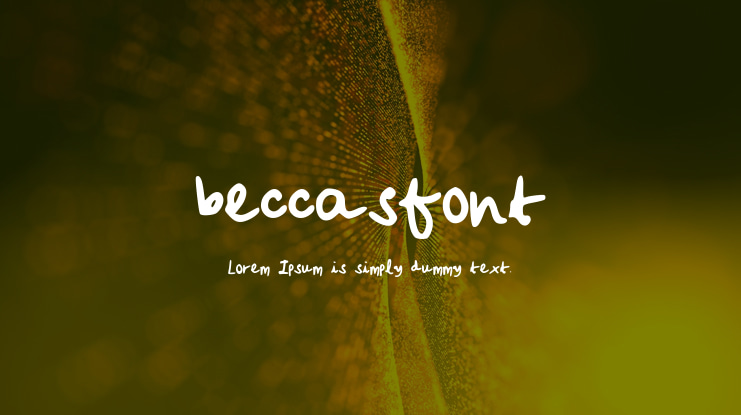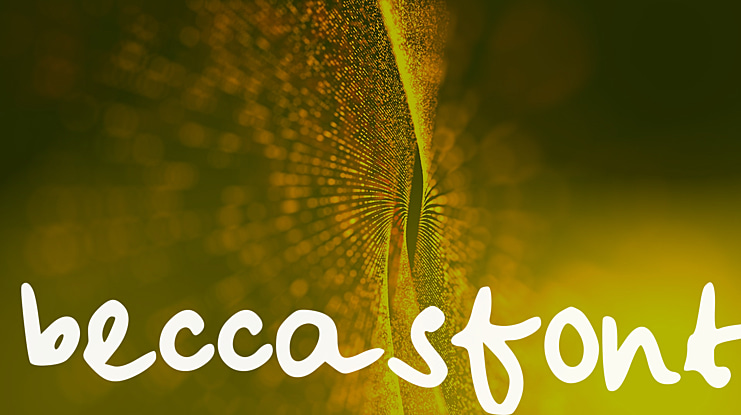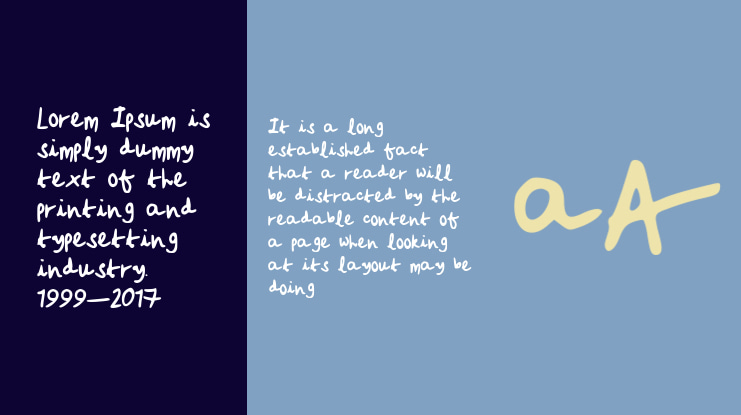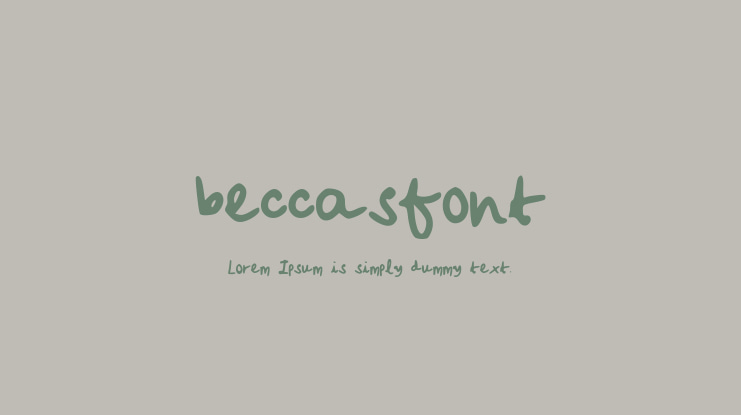
beccasfont Font
Made a cute fun font out of my handwriting using my graphics tablet, and thought if anyone likes it then they may feel free to use it!!